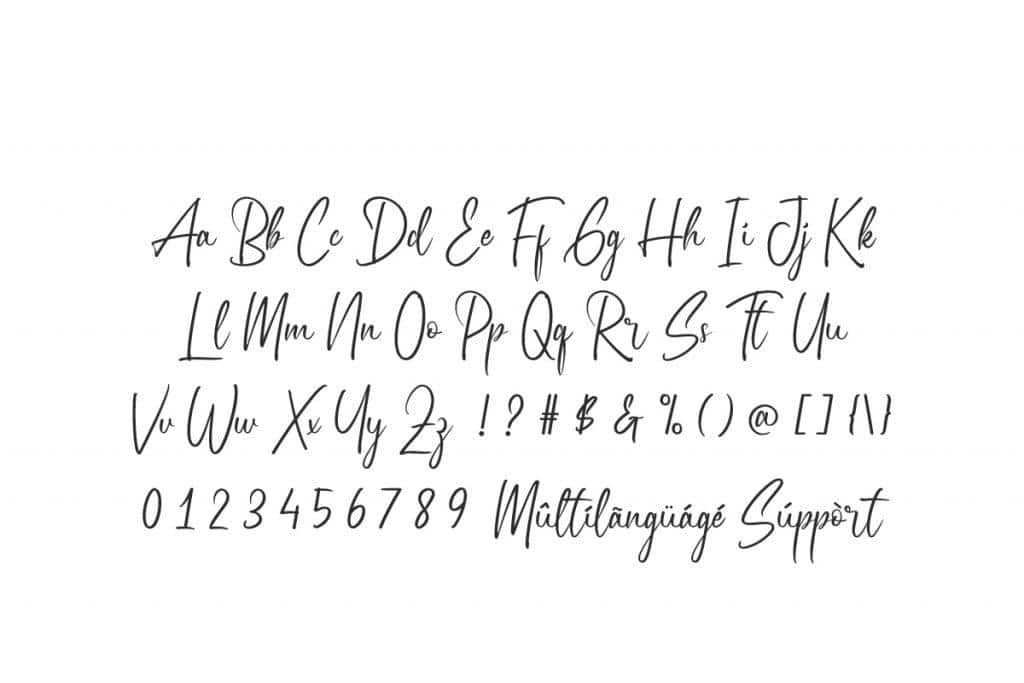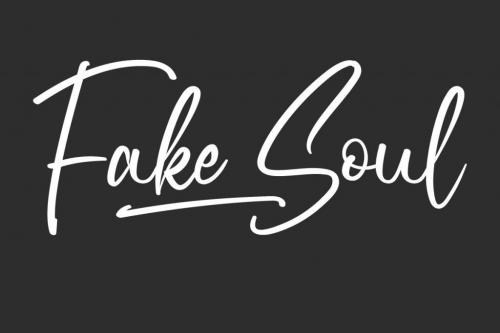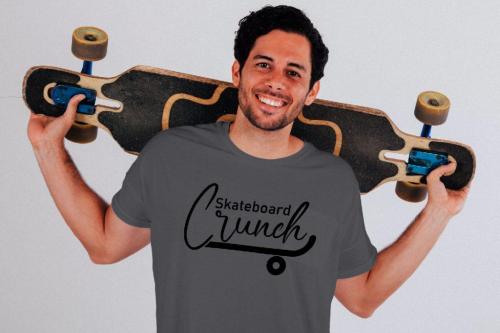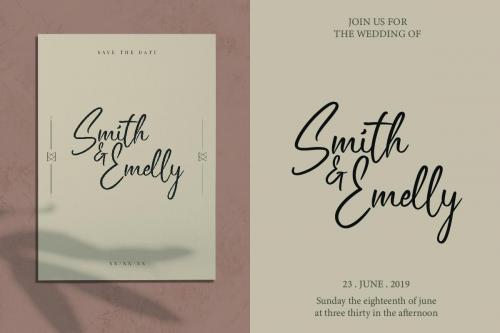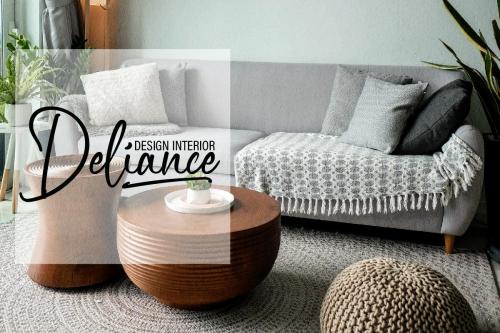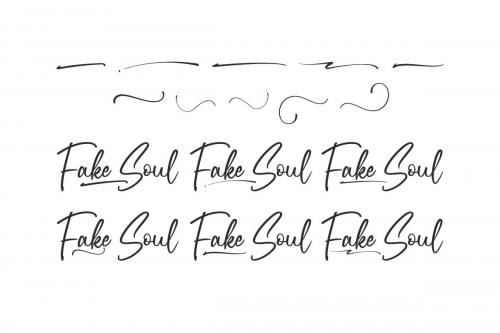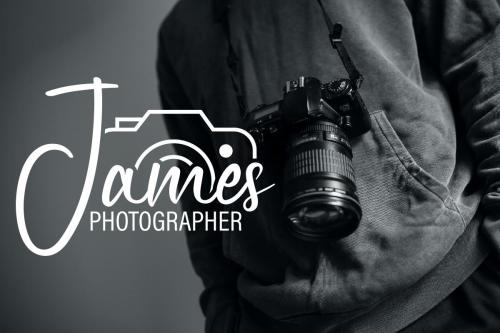
Fake Soul Font is a bold signature handwriting font which has professional look. This font is crafted carefully in every its single letter so we can make sure it has great looking, inspired by the handwriting of Italian women and ancient manuscripts. Carefully designed to work together in harmony and This one should make your designs instantly professional and jaw-dropping!
Fake Soul Font includes full set of Uppercase and Lowercase Basic Characters, Numerals and Punctuation. Also it contains ligatures to make it flowless characters to perfectly make awesome look that add more aesthetic fonts to perfect your extraordinary project. Fake Soul Font will be great for writer, musician, singer, CEO, composer, architect, etc
- Designer: VinType